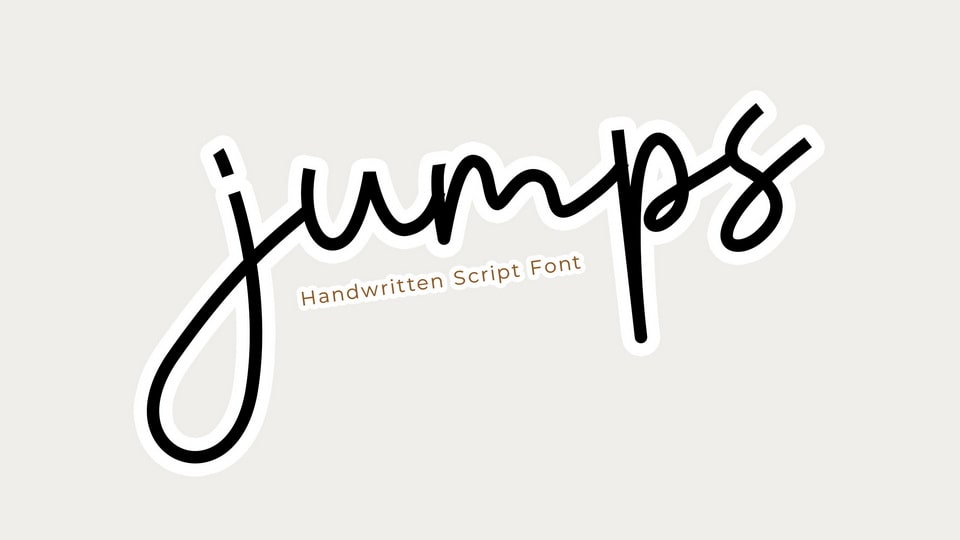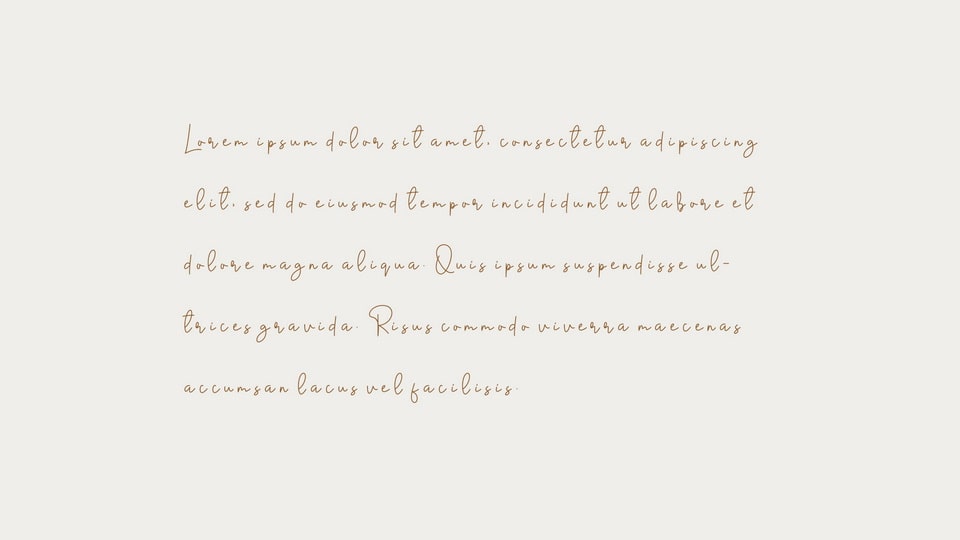
Famulred Font
Famulred is a casual monoline handwritten font that effortlessly combines simplicity with a touch of personal style. The font is gracefully crafted, maintaining a consistent line weight to deliver a clean and relaxed handwritten feel.
Famulred font is perfect for projects that require an approachable and easygoing vibe. It is ideal for friendly notes, casual invitations, or any design where you want to convey a sense of informality with a touch of elegance.